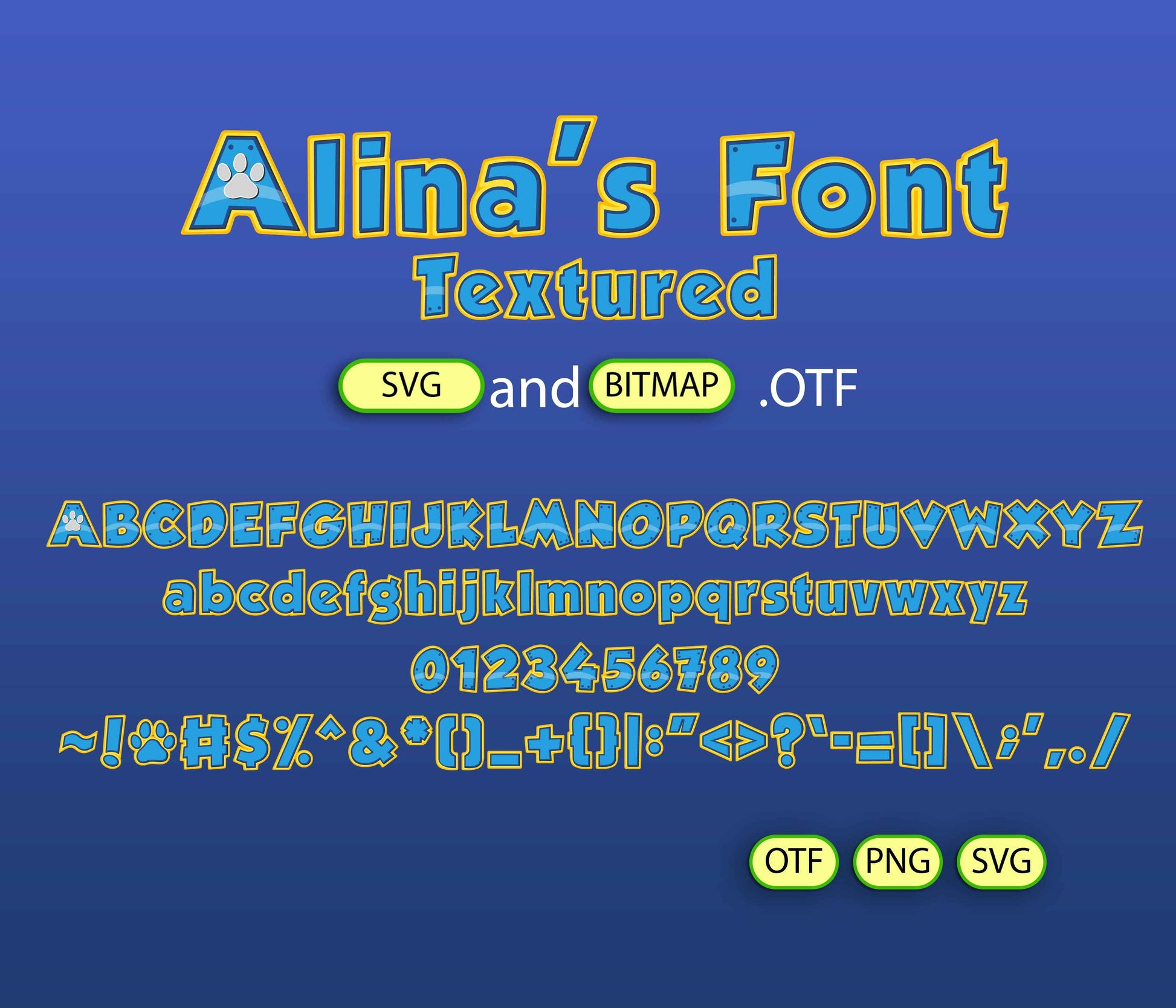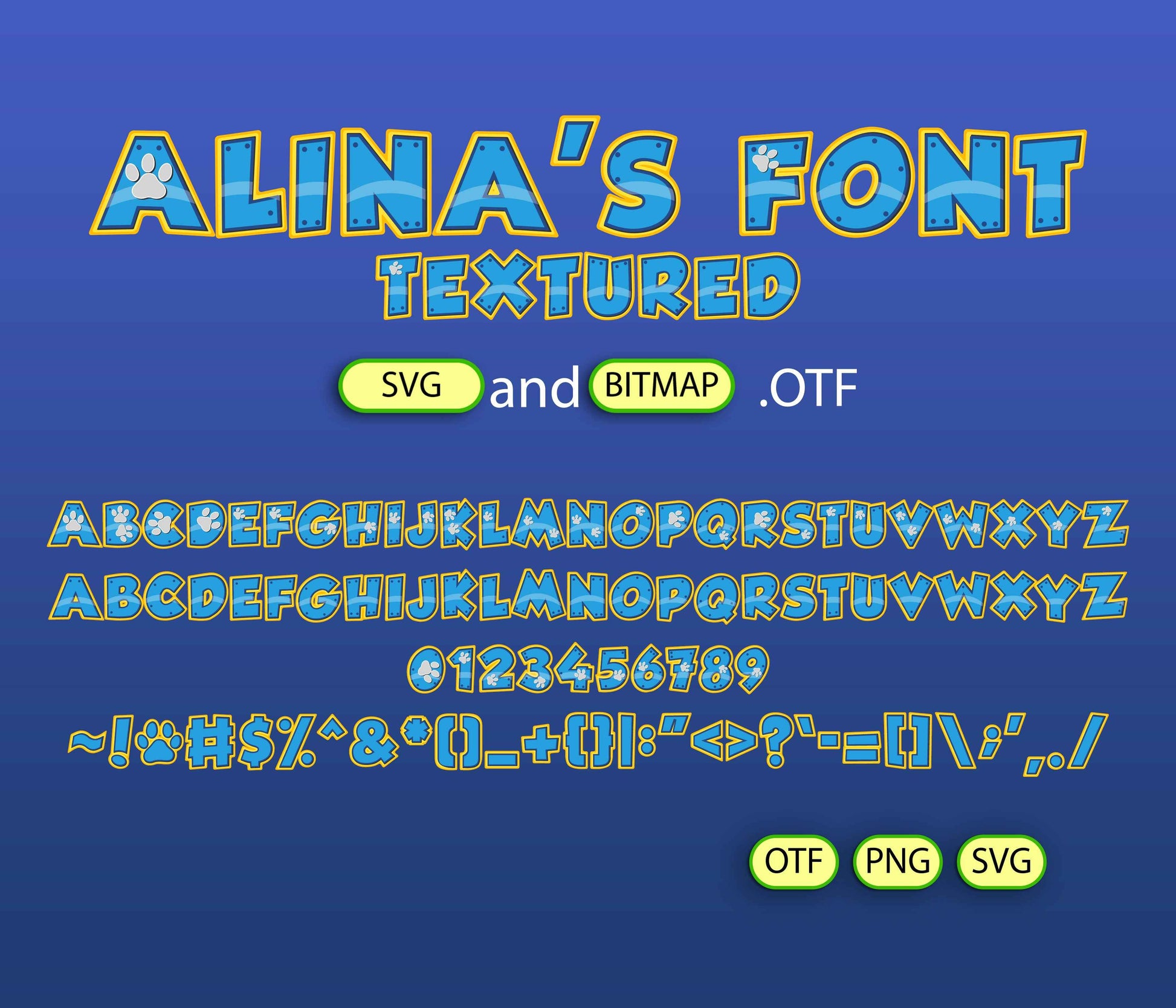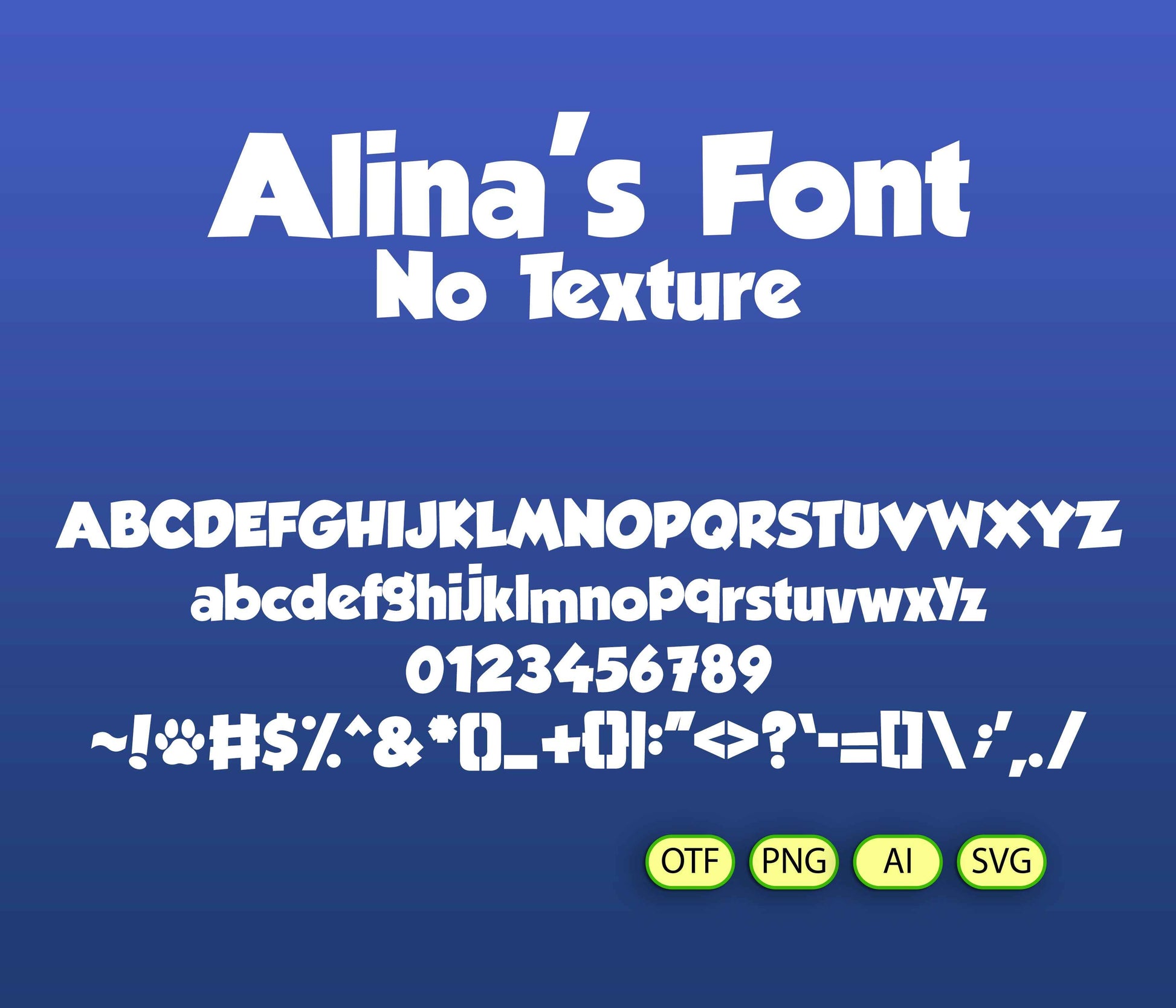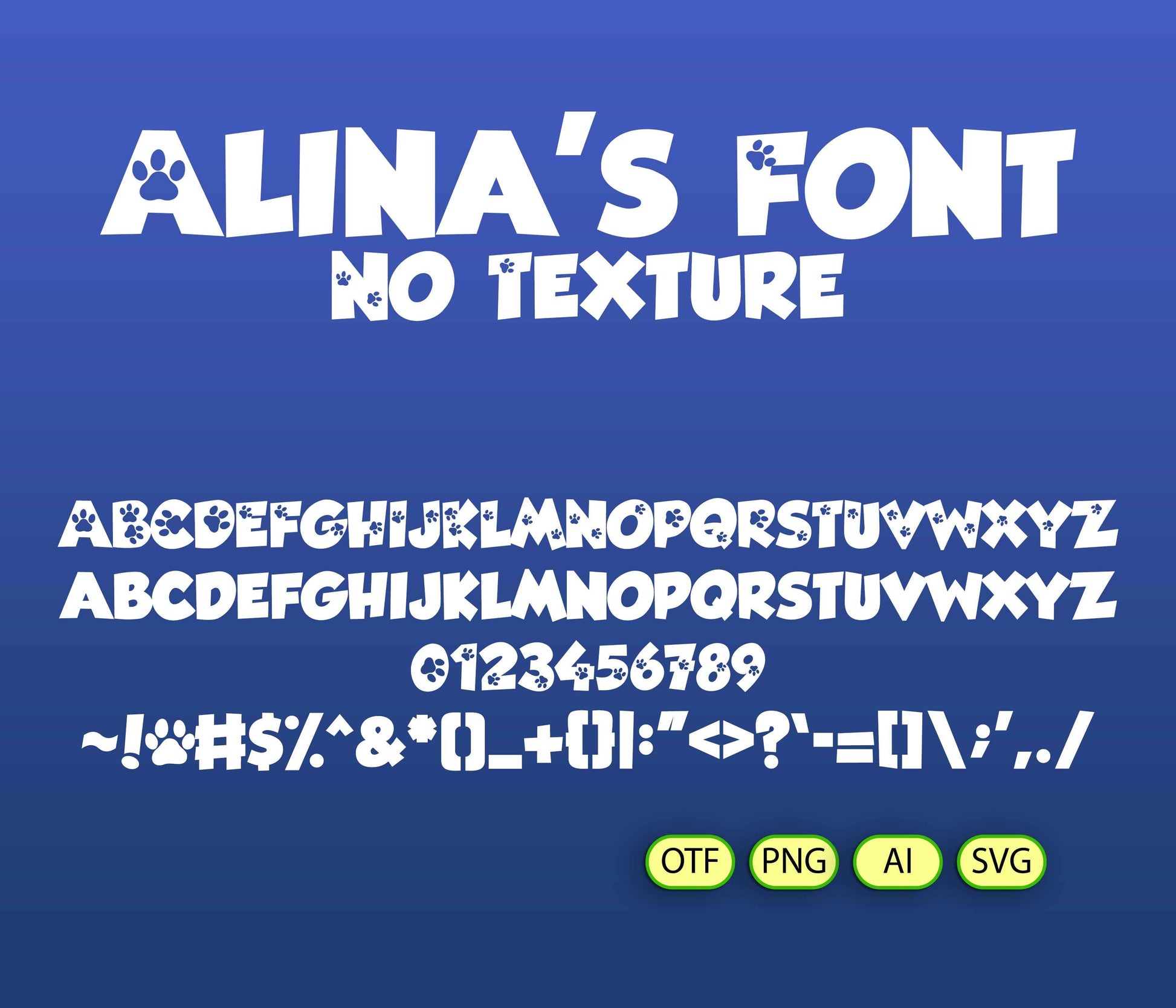
Puppy Patrol Font Textured Bundle
Puppy Patrol Font Textured: Adventure with the Rescue Team
Join the heroic pups on their exciting adventures with our Puppy Patrol font! This font captures the energy, fun, and bravery of a popular children's show, where a group of courageous puppies tackles various rescue missions. Each character in the font is infused with the playful and bold spirit of the rescue team, from leadership to enthusiasm. It's not just a collection of letters; it's an embodiment of adventure, teamwork, and problem-solving ethos.
What Font is Puppy Patrol Font?
Envision a typeface that is vibrant, dynamic, and kid-friendly, echoing the lively and colorful world of rescue pups. This font is designed to reflect the fun and accessible style seen in the show, making it perfect for engaging young audiences. It includes a comprehensive character set, covering alphabets, numbers, and special symbols, allowing for a wide range of creative applications that resonate with youthful charm.
What Can You Do With Puppy Patrol Font?
The Puppy Patrol font is versatile and perfect for various playful and educational applications:
- Children's Party Invitations: Ideal for crafting vibrant invitations for rescue pup-themed parties.
- Educational Materials: Use in classroom resources to captivate and engage young learners.
- Custom Apparel and Merchandise: Design t-shirts, hats, and other merchandise that young fans will love.
- Kid-Friendly Branding: Incorporate into branding for children's products and services.
- Digital Content: Enhance websites, apps, and social media geared towards kids and families.
- Decorative Art and Crafts: Create fun wall art, stickers, and craft projects.
- Event Signage: Design eye-catching banners and signs for children's events.
- Personalized Stationery: Create vibrant stationery for kids' everyday use.
- Storybooks and Comics: Use in children's books, comics, and other visual storytelling mediums.
- Playful Advertising: Bring a touch of rescue pup charm to marketing materials.
Feature Highlights and Bonuses:
- Textured and FREE Non-Textured Variants: Choose between a playful textured style or a smooth, non-textured version for various design needs.
- Comprehensive Character Set: Equipped with a full range of characters to cover all your design needs.
The Puppy Patrol font is more than just a typeface; it's an invitation to the world of adventure, teamwork, and fun.